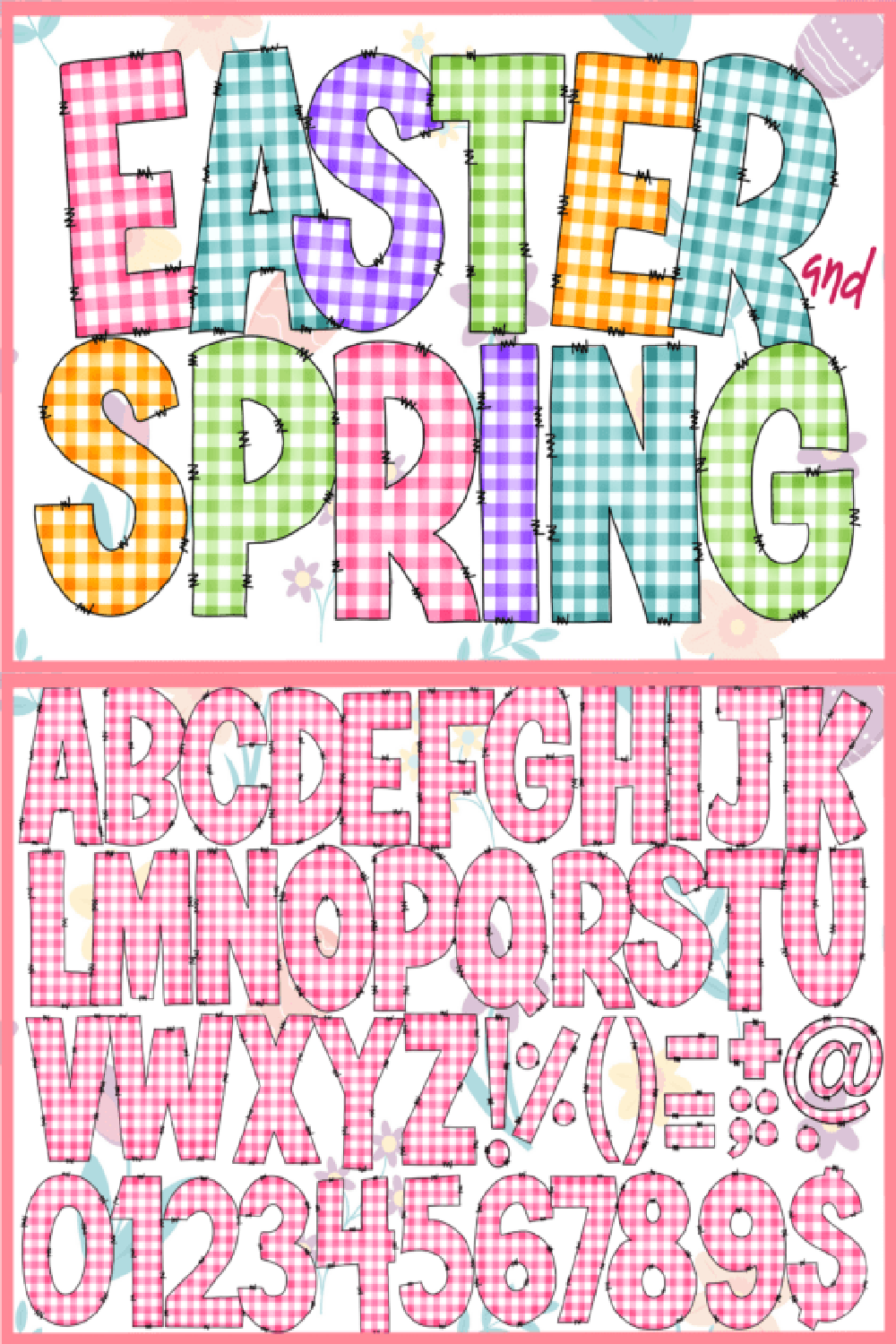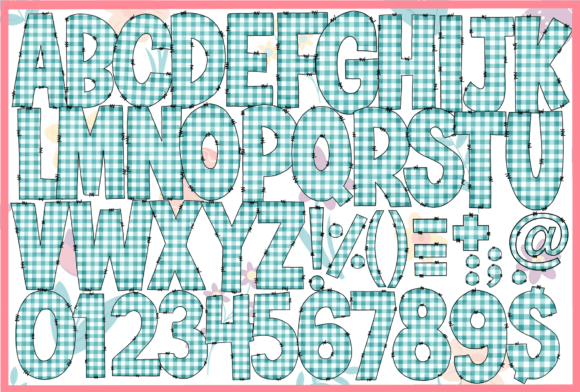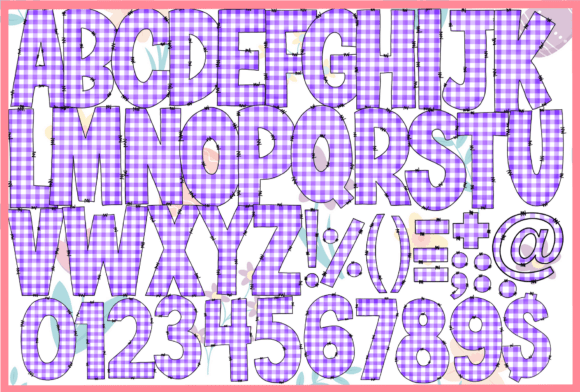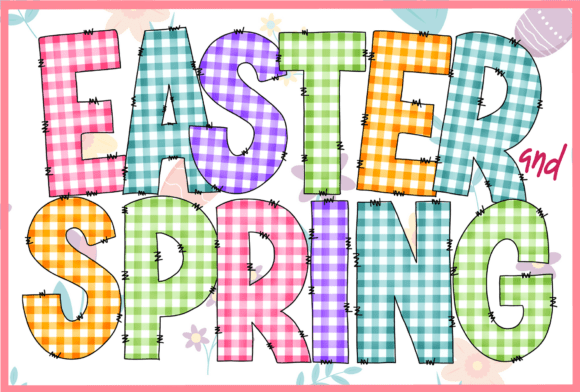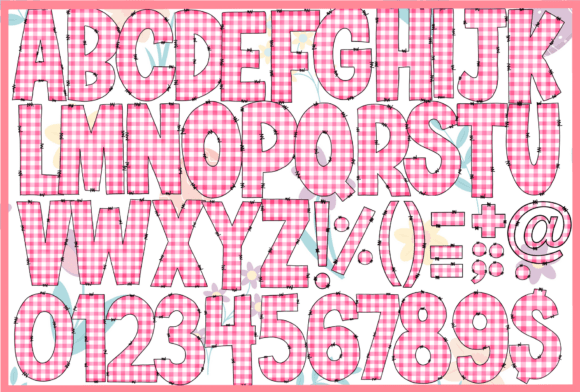
Easter and Spring Font
About the Easter and Spring Font
Unleash your creativity with Easter and Spring Font, a versatile font perfect for a wide range of applications. Easter & Spring is a fun and festive font featuring a charming gingham pattern with hand-stitched details. Perfect for adding a playful and cozy touch to your seasonal designs, this font is ideal for Easter crafts, spring decor, invitations, greeting cards, and more. Bright, colorful, and full of handmade charm, it’s a must-have for your holiday projects!